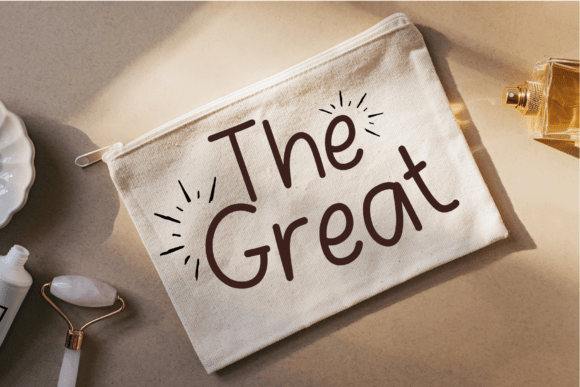
Mindful Writing Font
Mindful Writing is a handwritten font. It embodies playfulness and authenticity and is the perfect choice for all your favorite projects, or even for blog posts, logos, branding, ads, invitations, greeting cards, planners, photo albums, decorations, and much more. Add it to any of your designs, and enjoy the results!